Winter Fonts set a crisp, festive tone for holiday invitations, New Year posters, menus, gift tags and cool-toned social posts. Below you’ll find pairing ideas, icy color palettes, cutting-friendly picks and quick searches to grab exactly what you need for print and Cricut/Silhouette projects.
What Makes a Great Winter Font?
- Frost & sparkle: inline/engraved details, snowflake accents, subtle texture used sparingly.
- Elegant structure: high-contrast serifs, refined scripts, geometric sans for small text.
- High contrast palettes: cool blues with navy/charcoal and metallic gold/silver highlights.
- Cutting-machine friendly: solid fills, clean paths and layered/offset options for cardstock/vinyl.
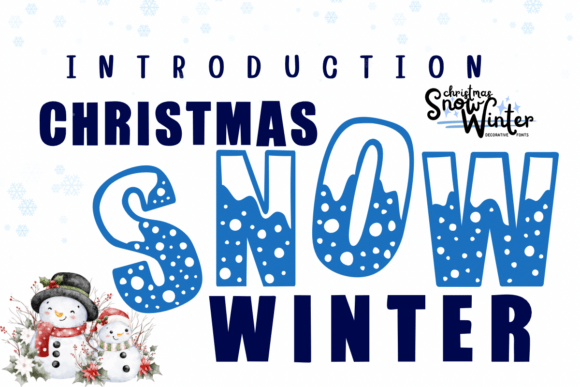
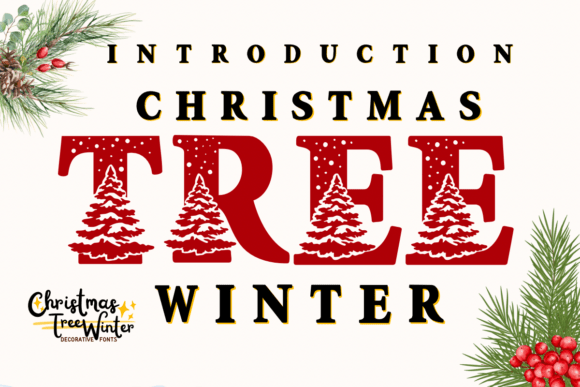
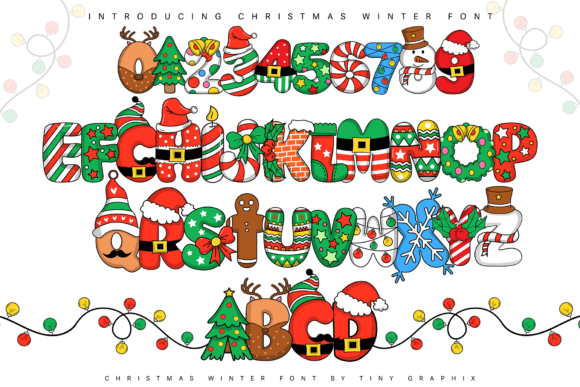
Font Pairing Recipes
Holiday Invitation
Names: Elegant calligraphy script
Details: High-contrast serif (small caps for date/time)
Accent: Thin inline caps or small snowflake icon
Why: Poised, celebratory headline with legible details.
Winter Market Poster
Title: Frosted display (with shadow layer)
Subhead: Grotesque sans
Body: Neutral sans/serif 10.5–12 pt
Why: Icy character up top; simple info blocks underneath.
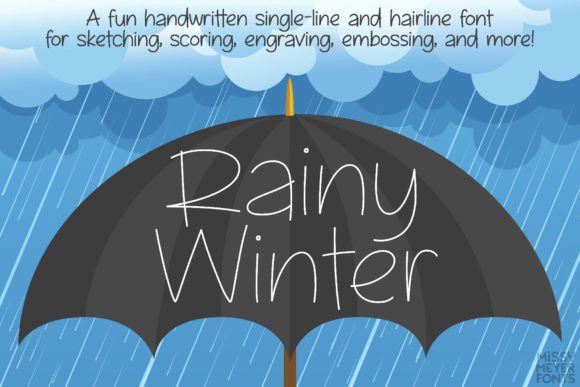
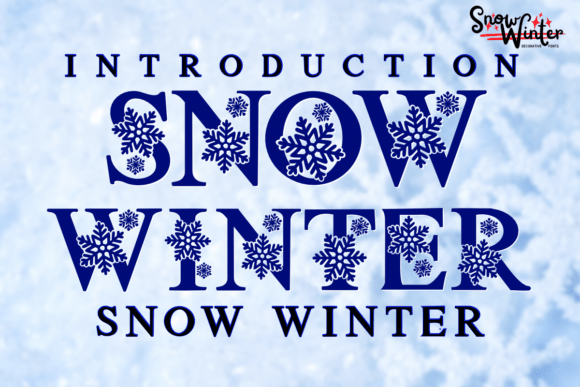
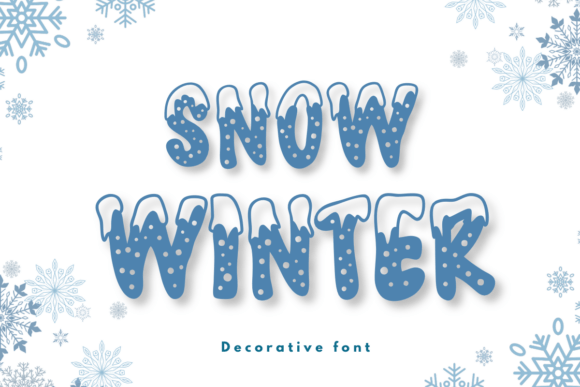
New Year Menu
Section titles: Elegant serif (all caps)
Items: Humanist serif/sans
Price dots: Period leaders •••
Why: Sophisticated hierarchy that prints cleanly.
Gift Tags & Stickers
Main: Nordic display or monoline script
Secondary: Rounded sans
Why: Friendly shapes that stay readable at small sizes.
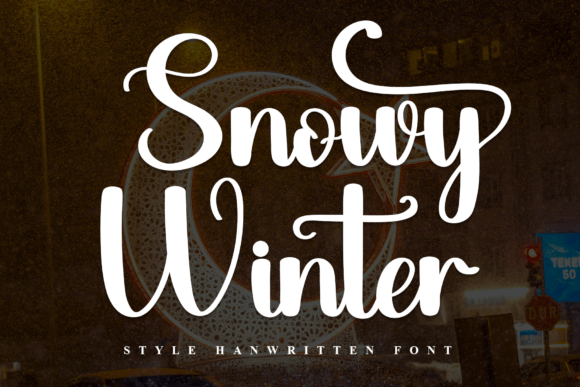
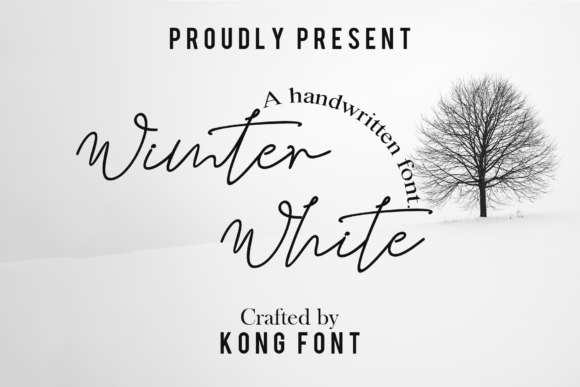
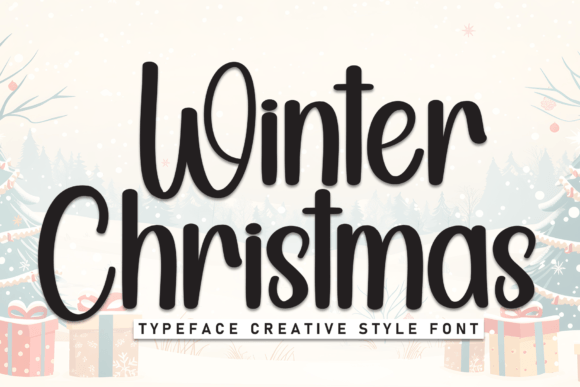
Winter Color & Layout Tips
- Cool palette:
#0EA5E9ice,#1E293Bnavy,#E2E8F0frost,#CBD5E1silver. Festive accent:#D4AF37gold. - Keep contrast high: dark titles on light panels (or vice versa) for snowy scenes.
- Layered shimmer: base + subtle inline + soft shadow; avoid hairline inlines below ~1.5–2 mm for cutting.
- Spacing: tighten chunky displays a touch (-2% to -6%); add generous line-height for stacked headings.
Project Ideas (Print & Cutting)
- Holiday cards & invitations: script names + serif details; foil or metallic ink for headings.
- Event posters: retro ski or frosted display with bold color blocks.
- Gift tags, labels & stickers: nordic displays; minimum 20–24 mm height for easy weeding.
- Menus & programs: elegant serif titles; keep body at 11–12 pt for legibility.
- Window decals: stencil winter fonts in white vinyl; check bridges ≥1.6 mm.
Cutting-Friendly Settings
- Prefer solid fills and clean paths; expand appearance before exporting SVGs.
- Scripts under 30 mm: simplify swashes; add offset/outline 0.8–1.6 mm for strength.
- Snowflake ornaments: keep minimum gaps ≥1.6–2 mm to prevent tearing.
Winter Fonts FAQ
Frosted displays, elegant high-contrast serifs, refined calligraphy scripts and cozy Nordic displays.
Use decorative faces for headlines; keep details in a neutral serif/sans at 10.5–12 pt with comfortable line-height.
Ice #0EA5E9 + Navy #1E293B + Frost #E2E8F0; or Silver #CBD5E1 + Gold #D4AF37 accents on charcoal.
Solid, layered displays and simple scripts with clean paths; avoid ultra-thin inlines or distressed textures at small sizes.